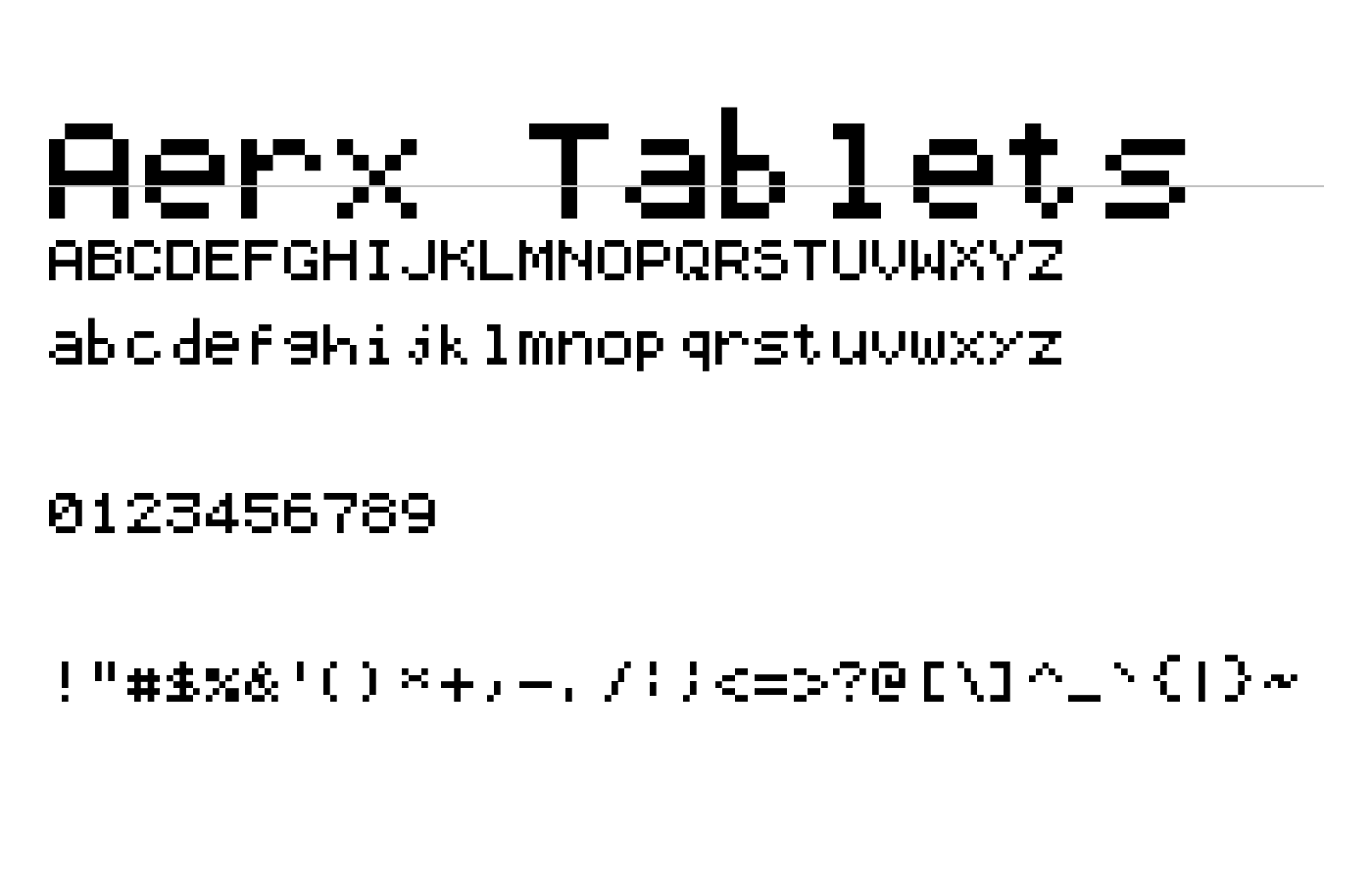
Aerx Tablets is a pixelated, monospaced sans serif font that evokes a retro, digital feel reminiscent of early computer screens and video games. Its sharp, blocky letterforms and uniform stroke weight give it a technical and minimalist appearance, making it ideal for projects seeking a nostalgic or tech-inspired vibe. This font works best for digital interfaces, gaming graphics, and creative branding where a clean yet vintage electronic style is desired.
Aerx Tablets Font
About Aerx Tablets Font